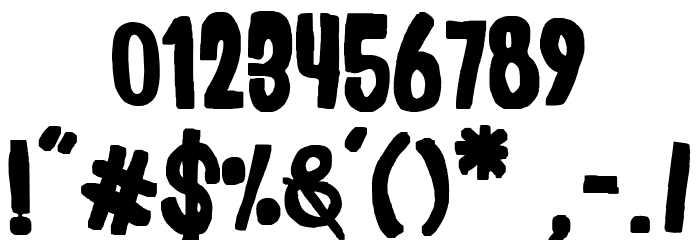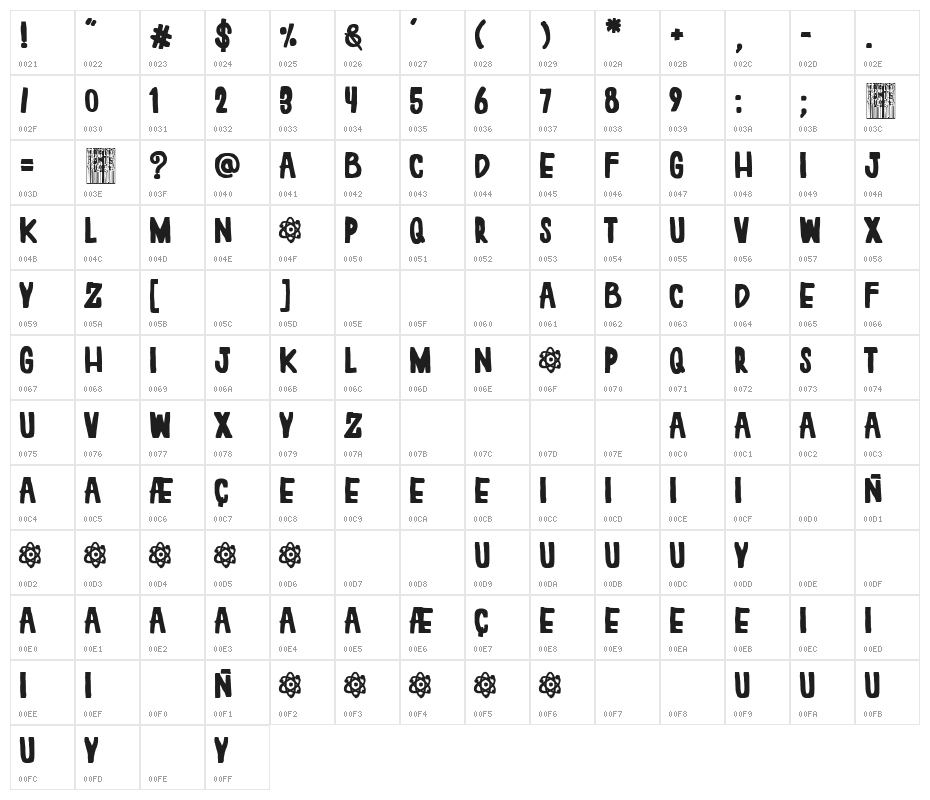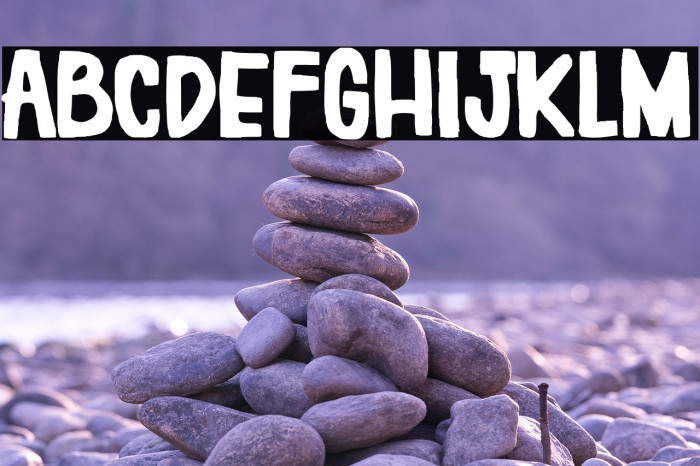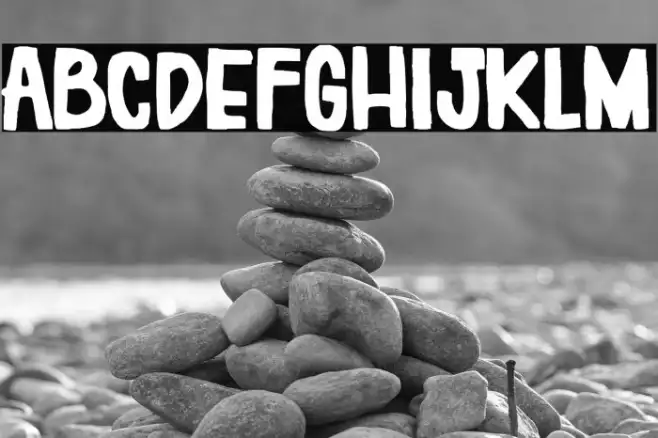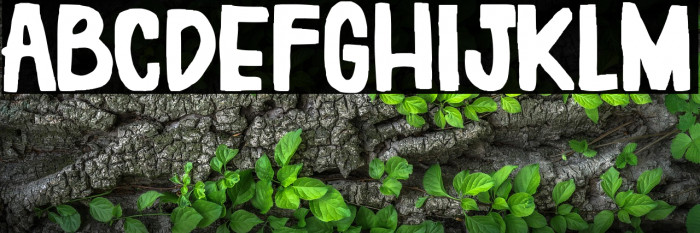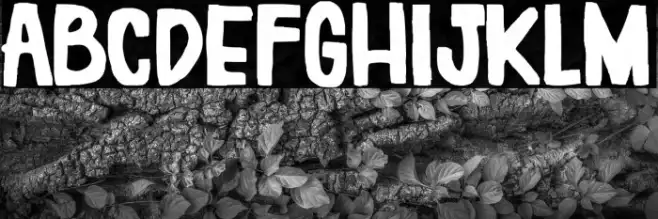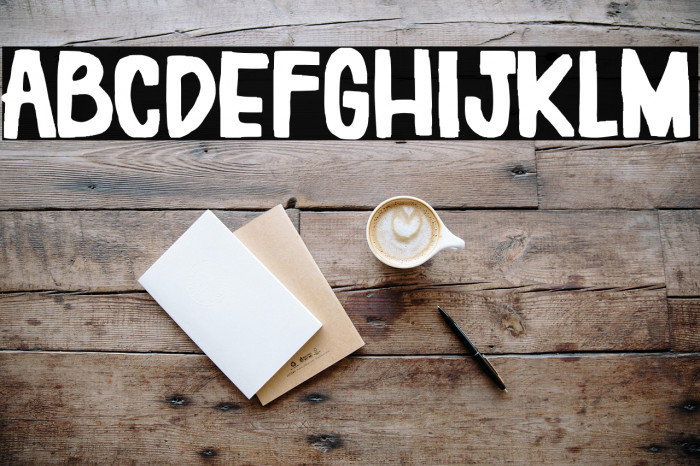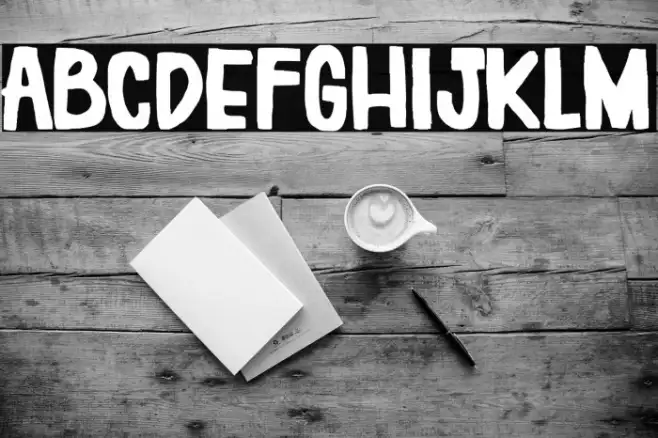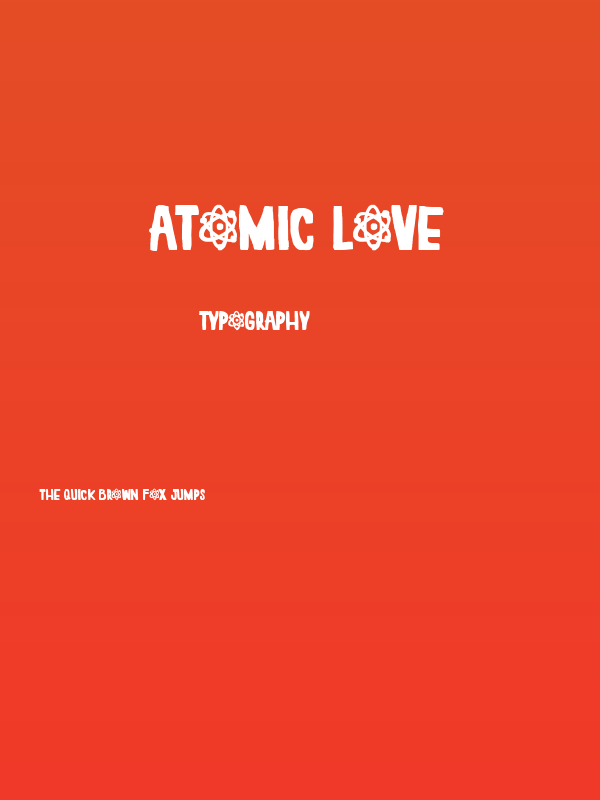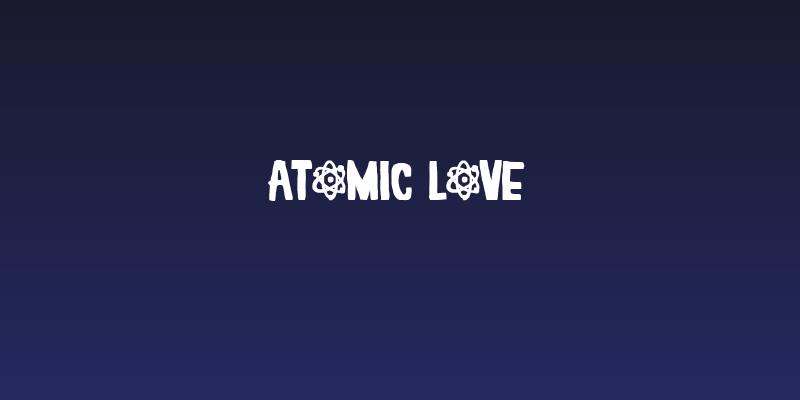
Atomic Love Font
Atomic Love Description
This font features a bold and playful style with a unique, hand-drawn appearance. The characters are thick and slightly irregular, giving them a casual and approachable feel. The inclusion of an atomic symbol within the letter 'O' adds a quirky and thematic element, making it stand out. The font is highly legible with a strong presence, suitable for eye-catching designs. The numbers and special characters maintain the same bold and playful aesthetic, ensuring consistency across all elements. This font is ideal for projects that require a fun and dynamic look.
| Overall Style | Playful, Quirky |
| Proposed Projects | Perfect for posters, children's books, comic strips, and branding that requires a fun and energetic vibe. |